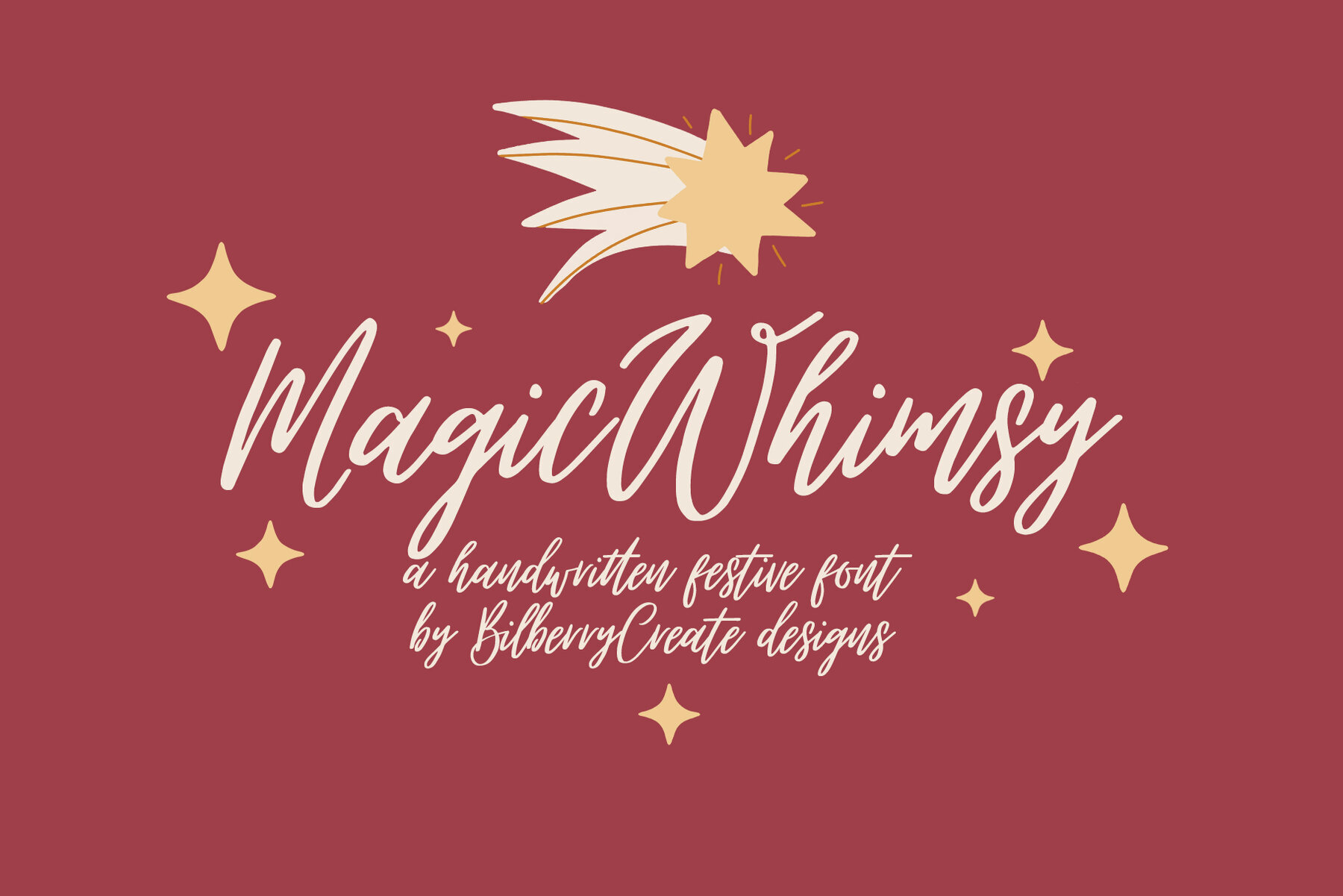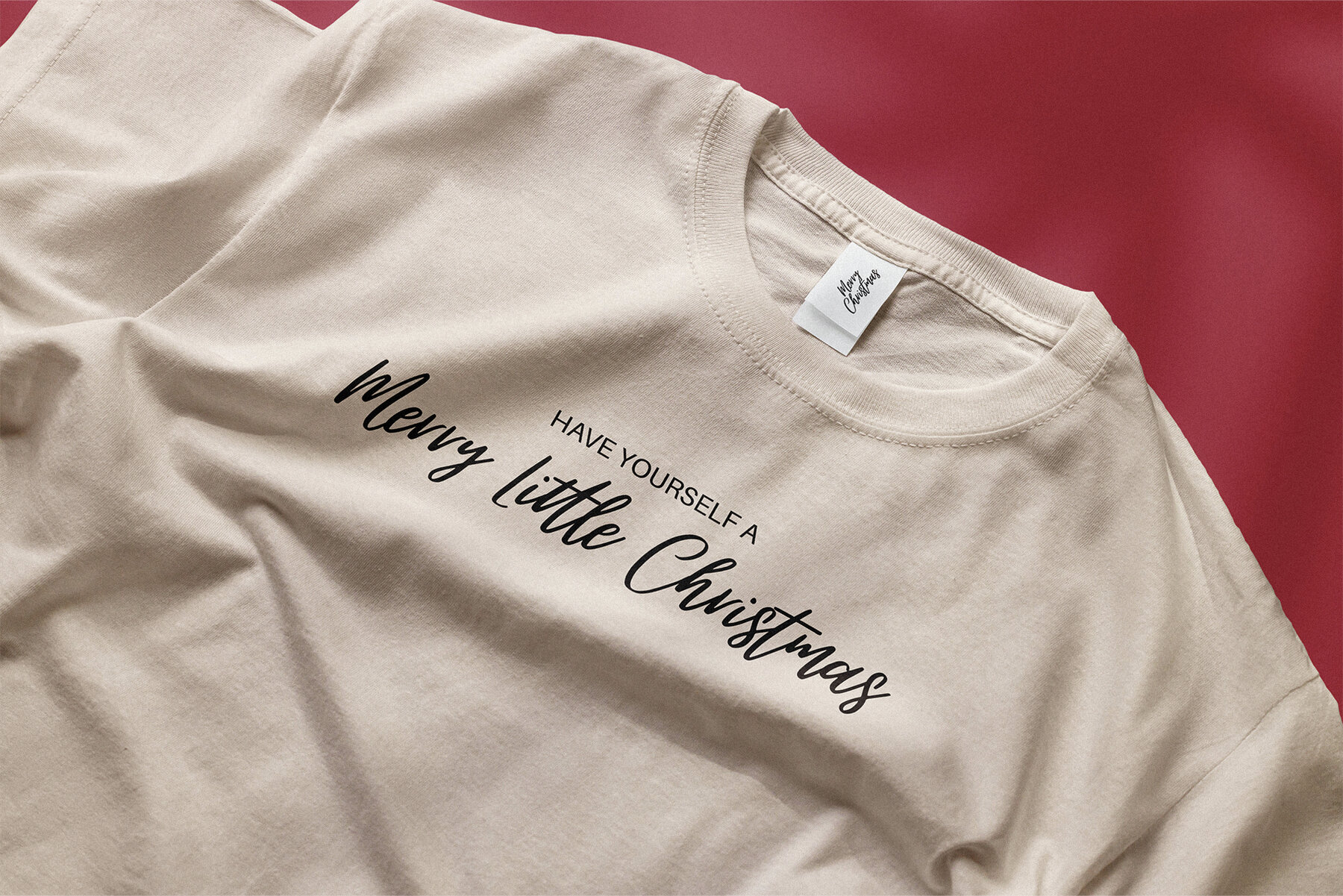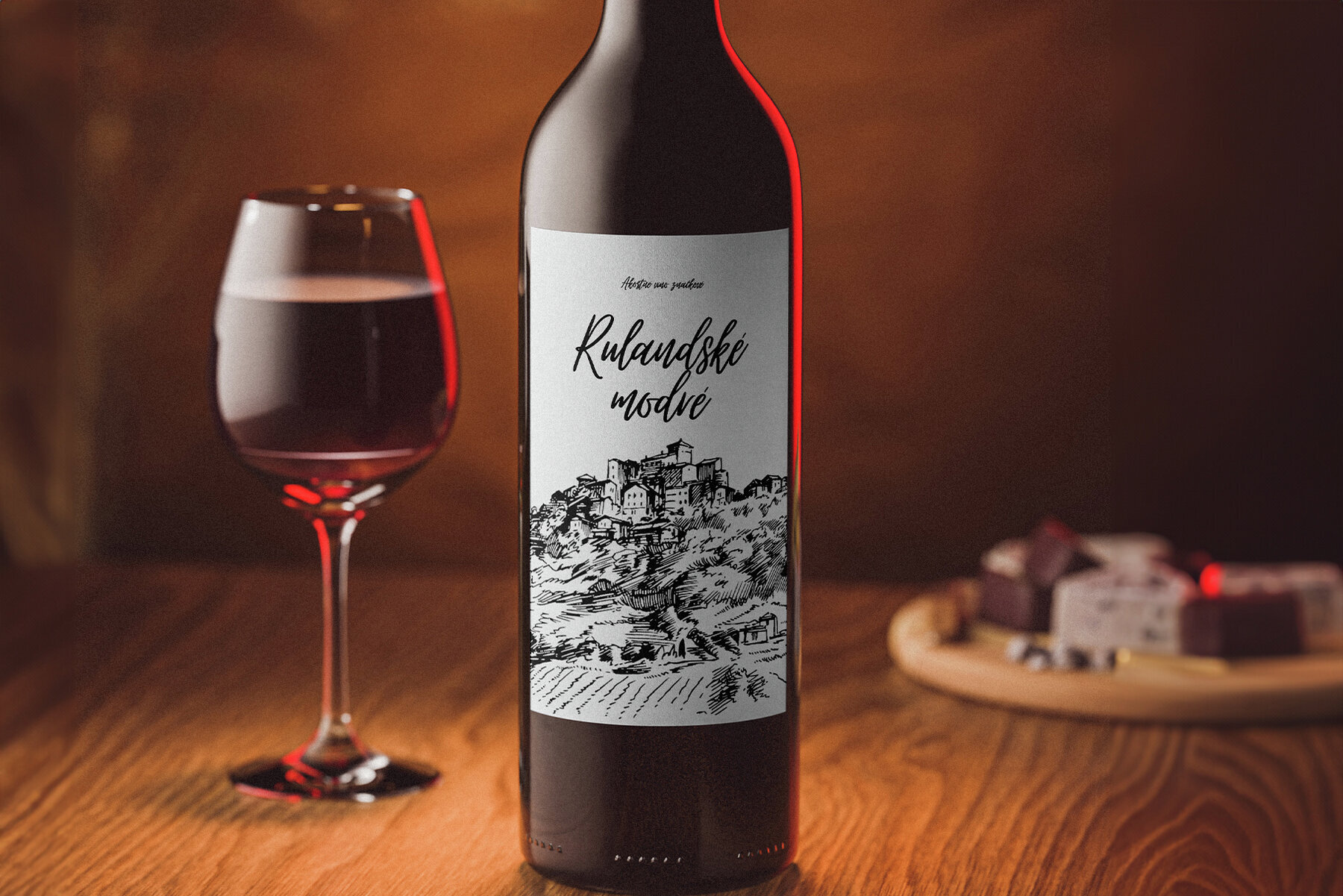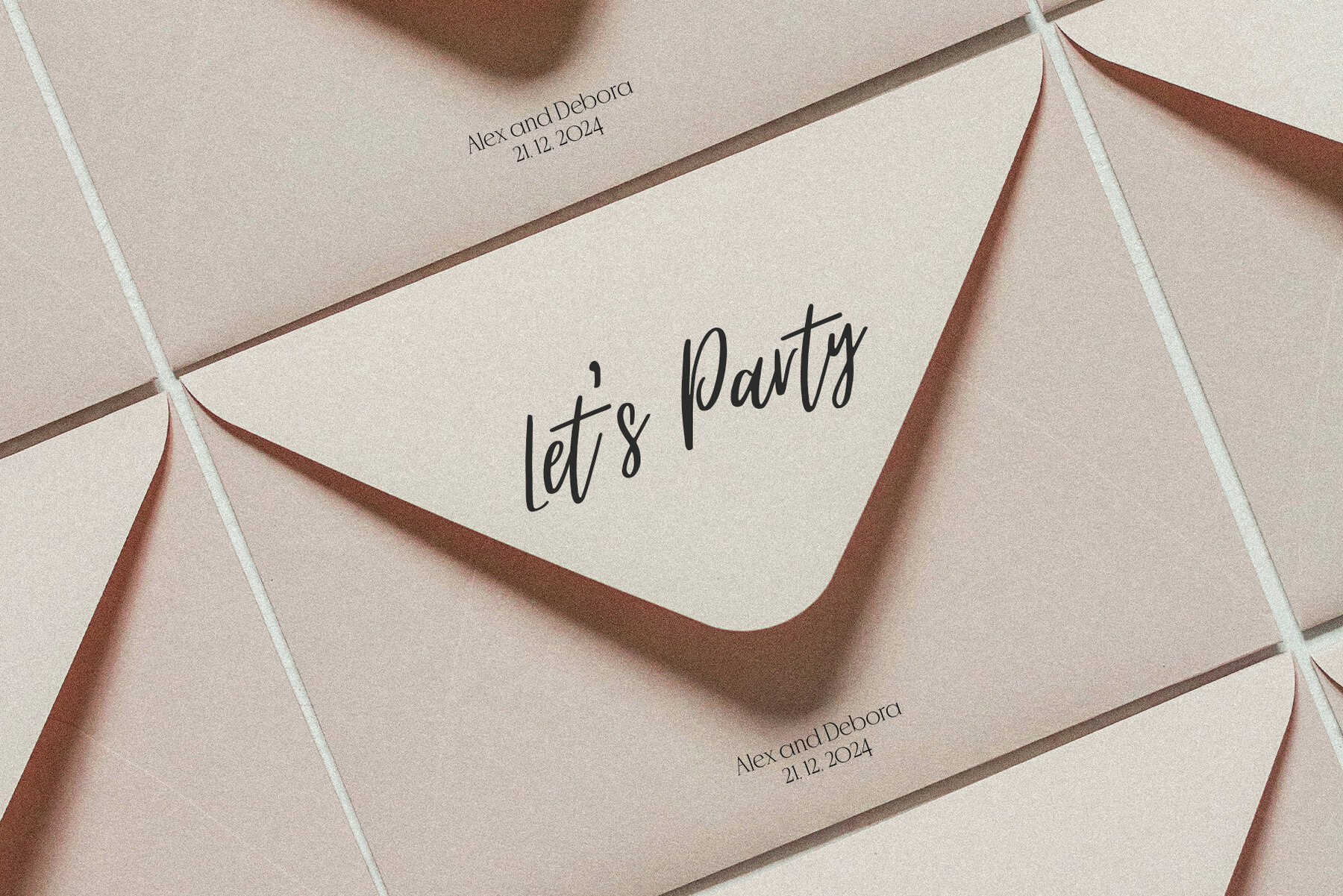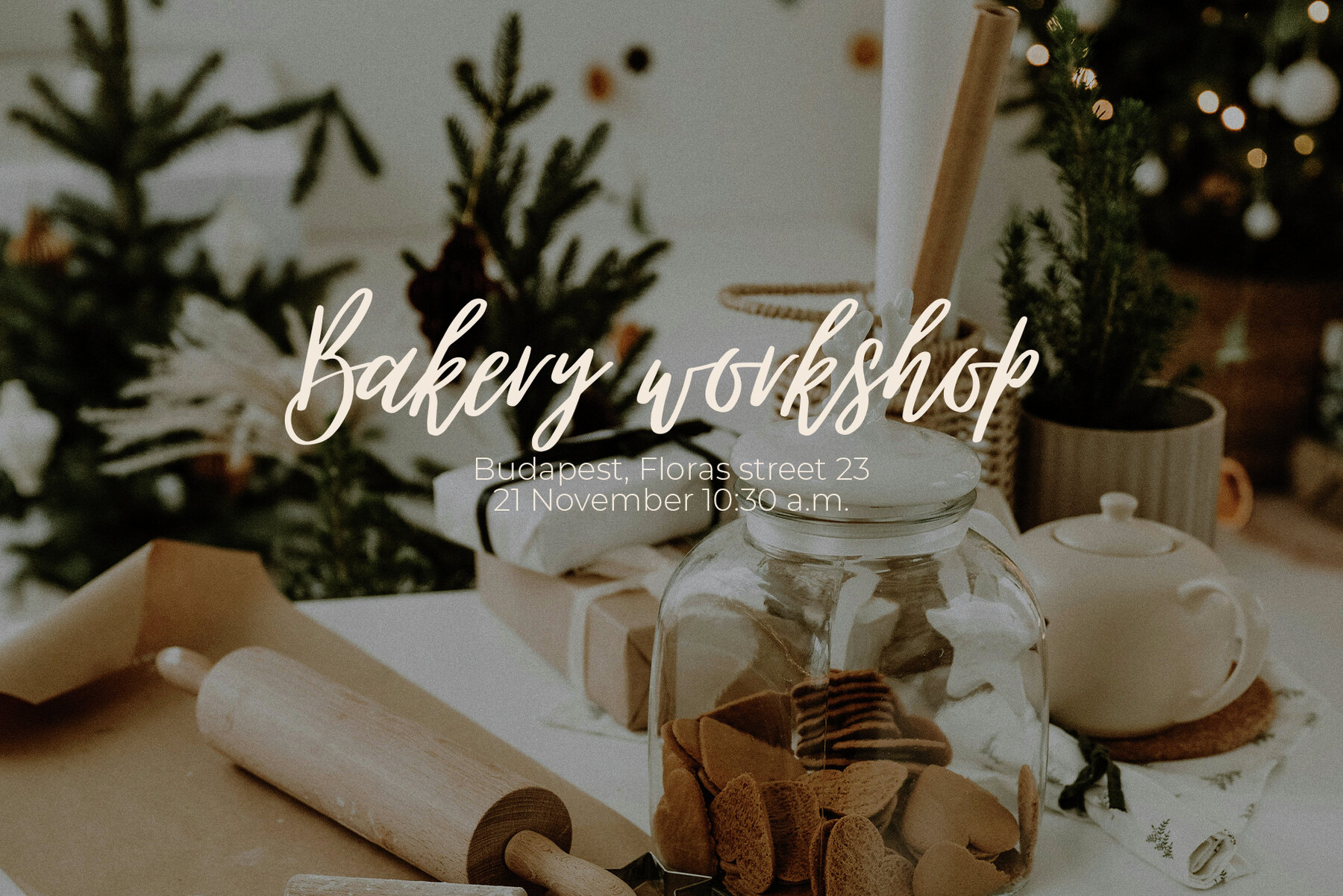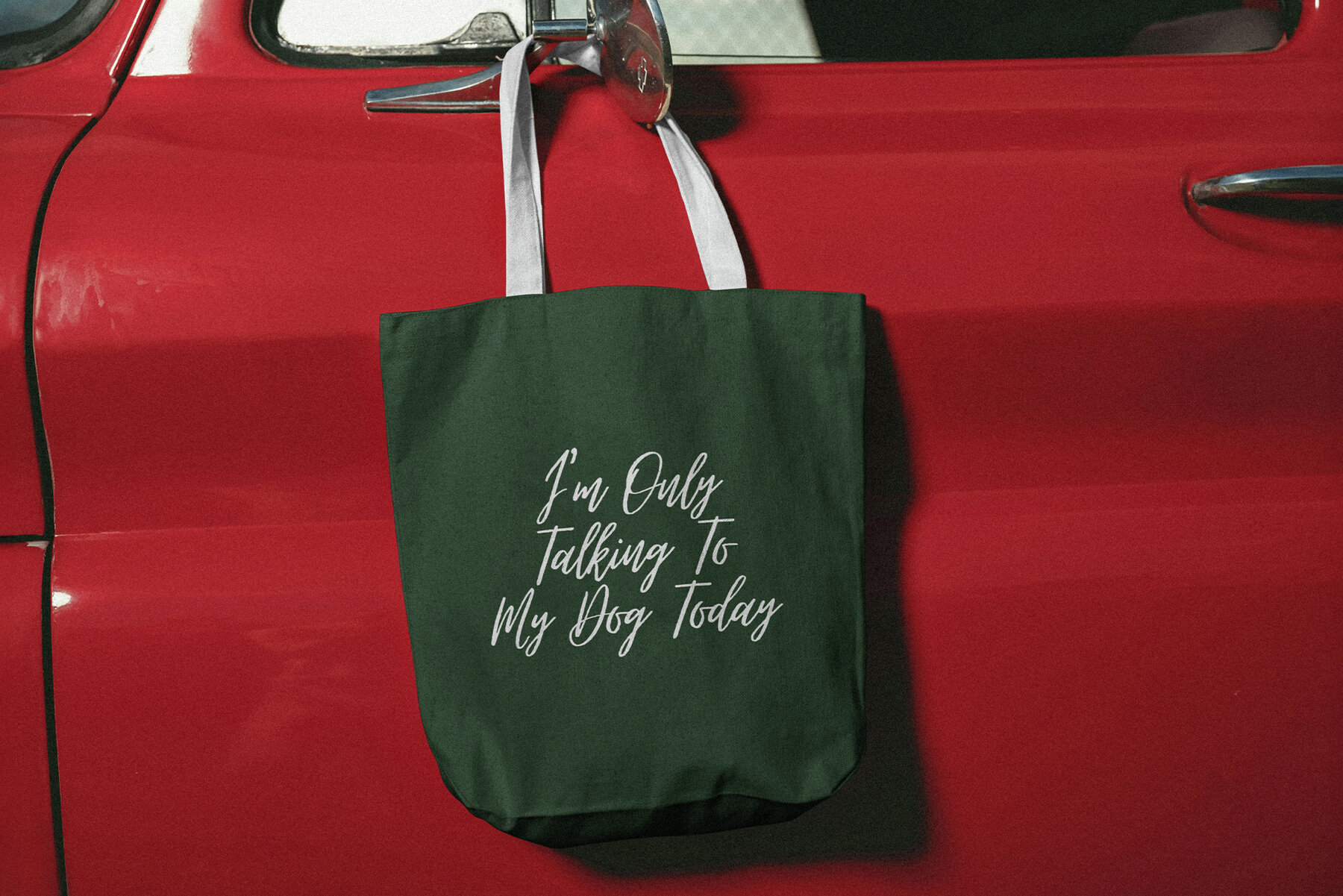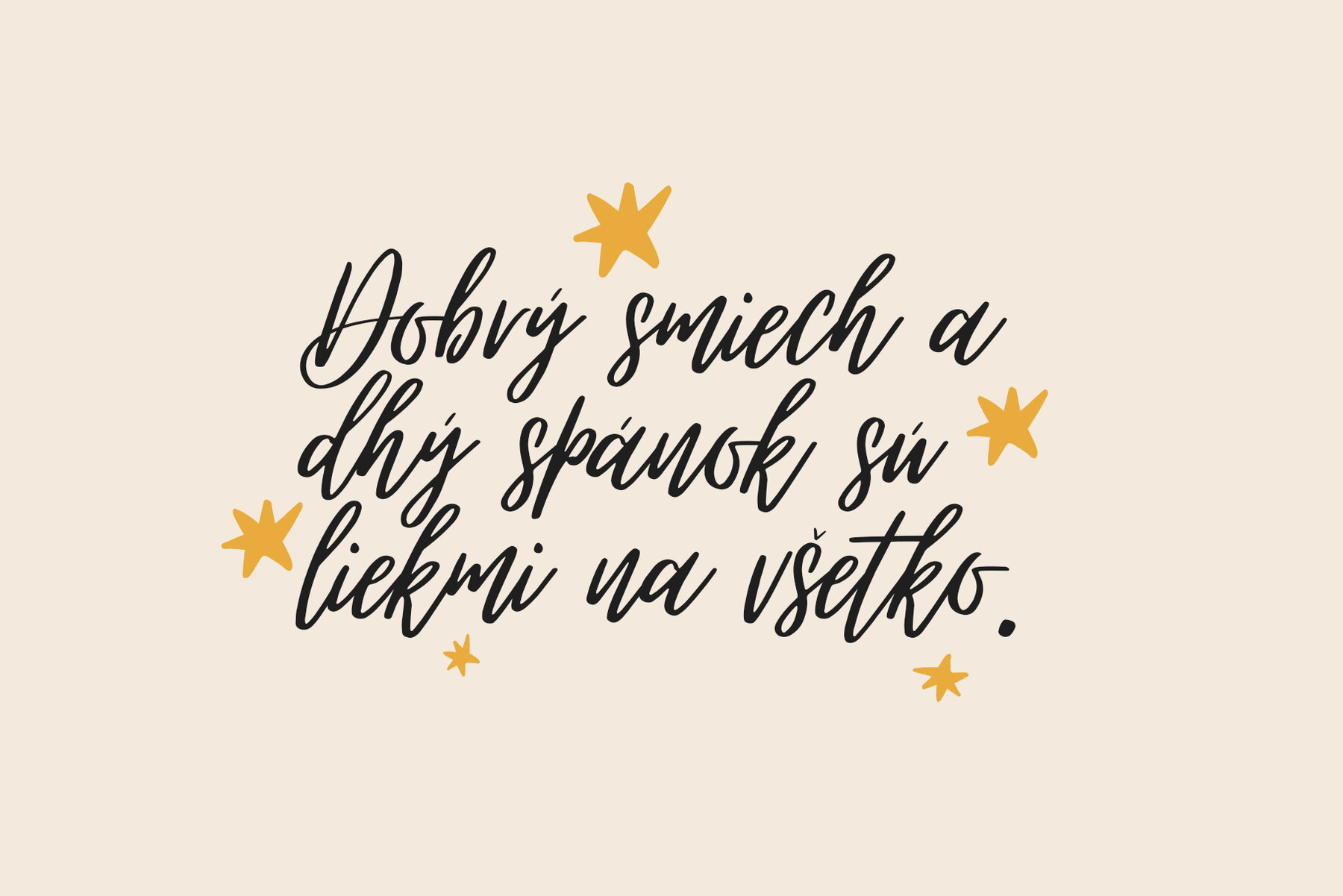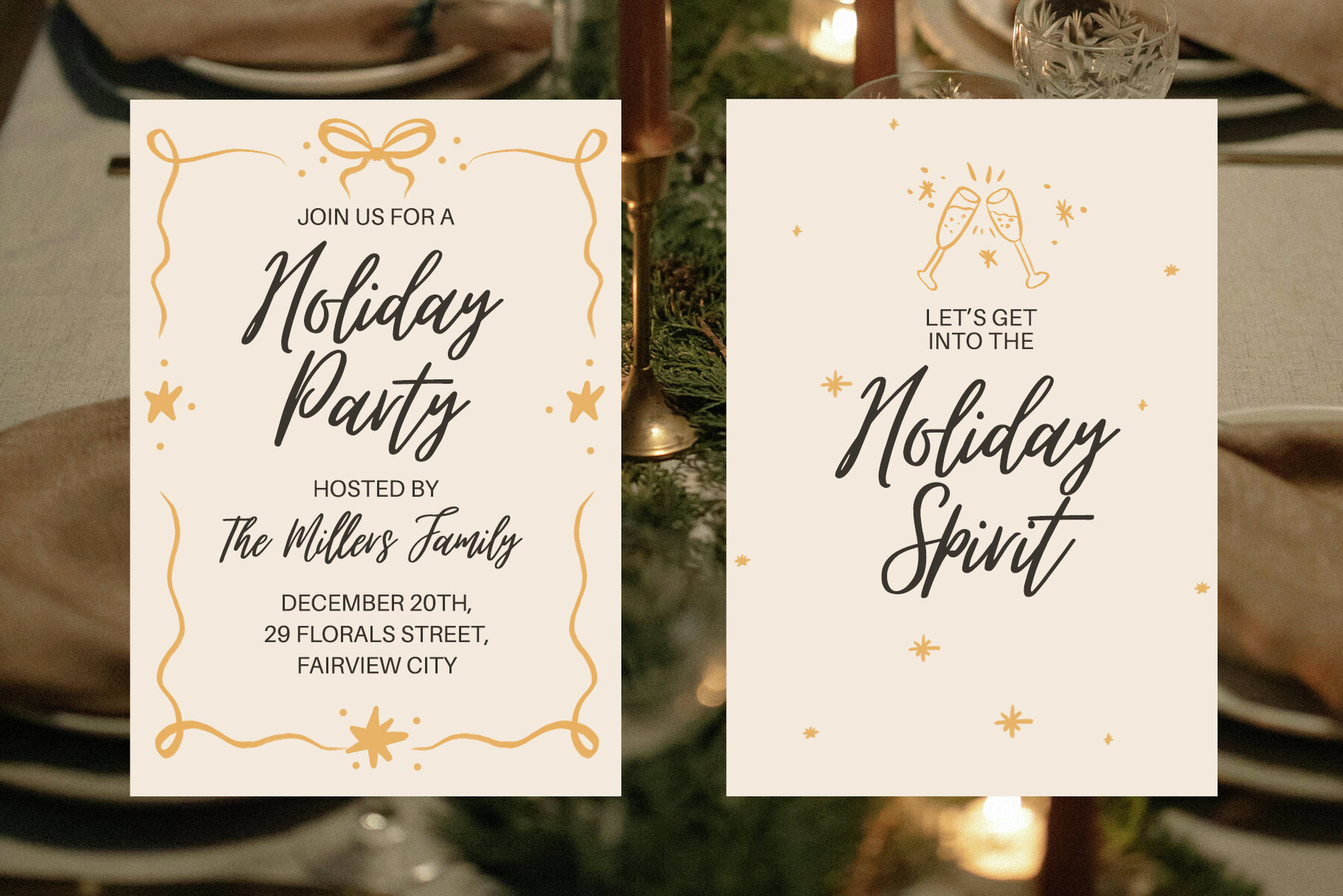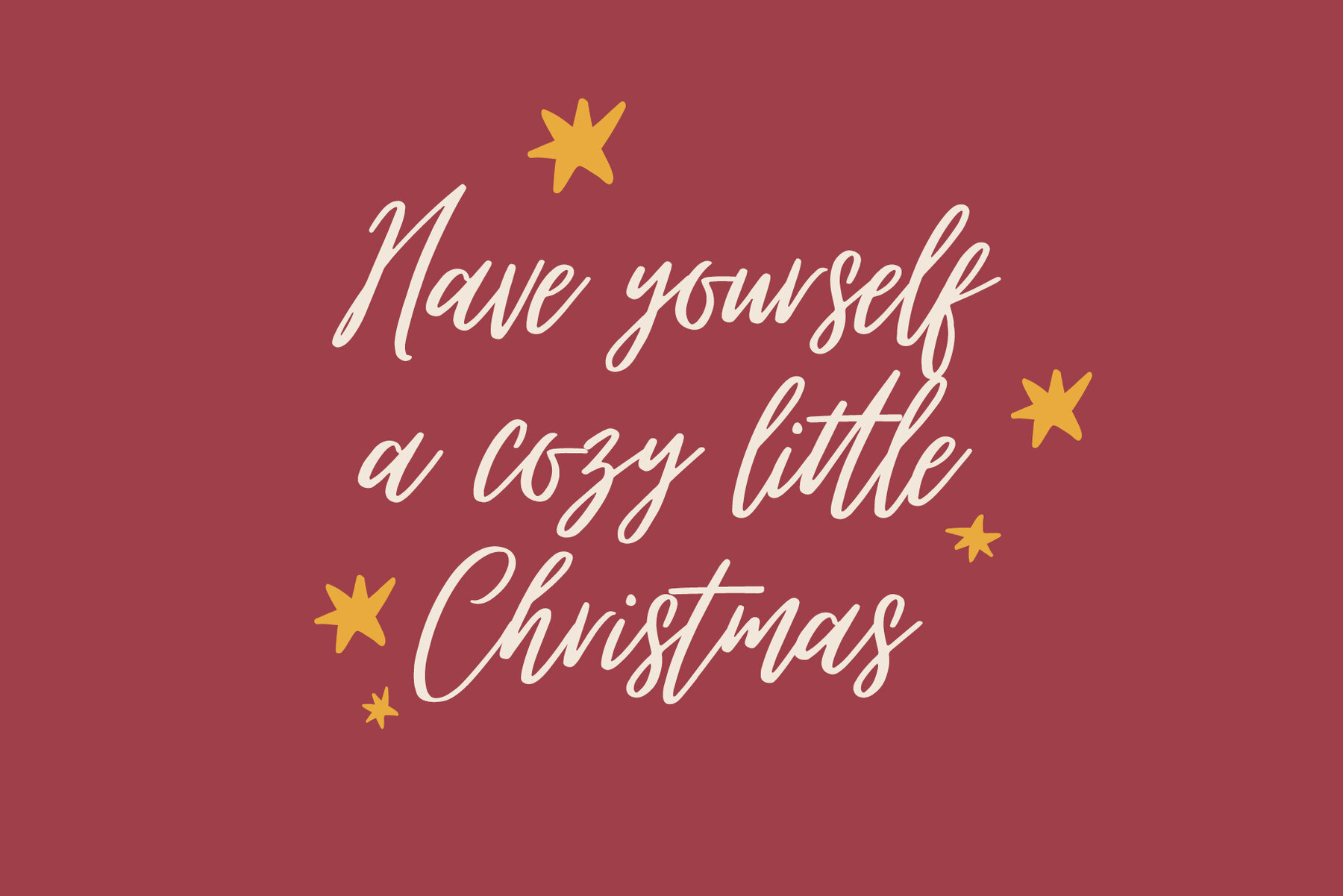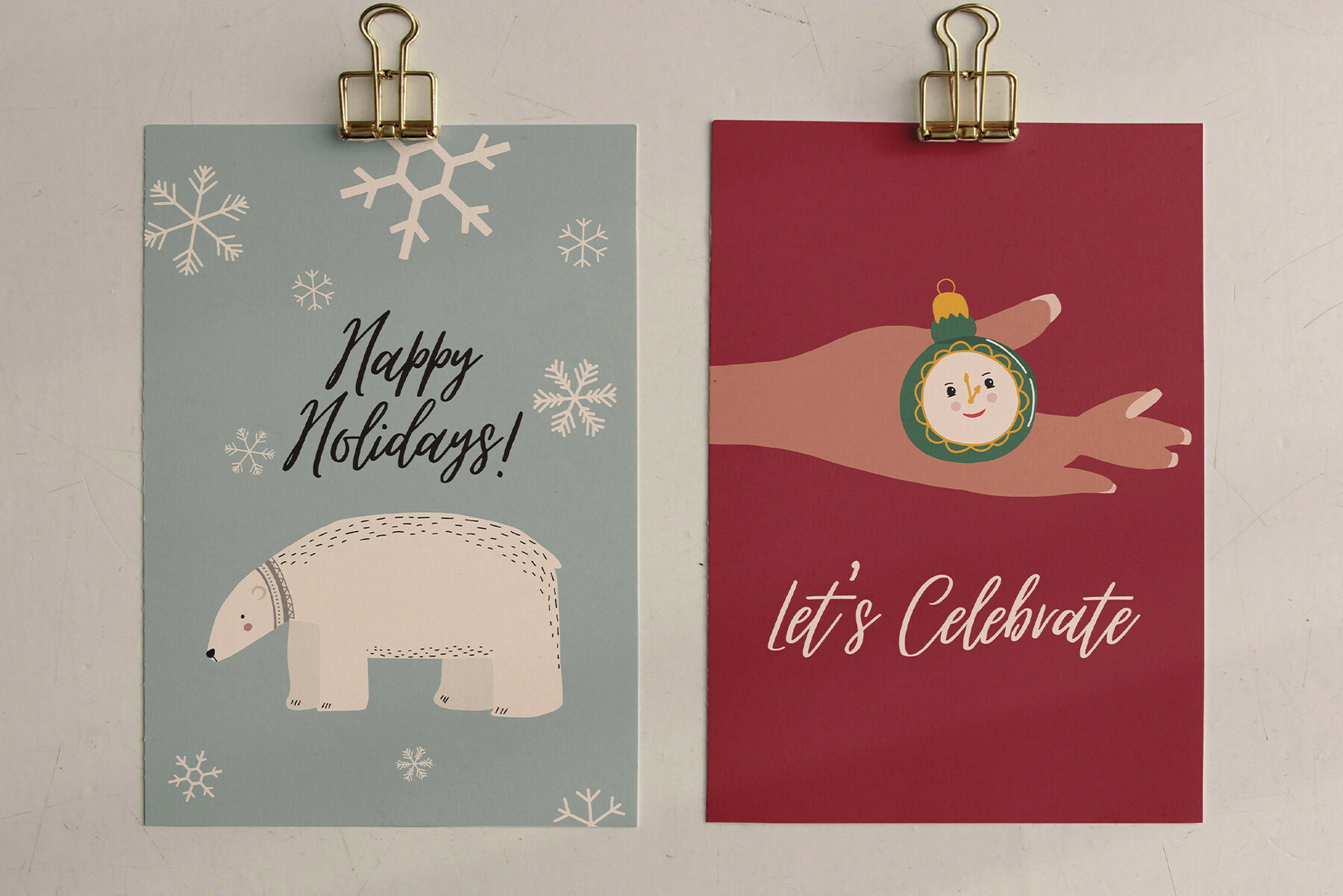
Magic Whimsy Font
Magic Whimsy is a charming handwritten festive font designed to infuse your projects with a touch of elegance and individuality. Ideal for a variety of creative applications, this font can enhance your logos, invitation cards, wedding and birthday cards, home decor, and more. The whimsical style makes it a versatile choice for packaging holiday gifts and creating party decorations, adding a unique flair to printed fabrics as well.
This font package includes the Magic Whimsy font with multilingual support, making it suitable for a global audience. Its delightful design ensures that whatever you create, from personal projects to professional designs, will stand out with a distinct and enchanting quality. Dive into a world of creativity with Magic Whimsy and explore endless possibilities for your digital creations.